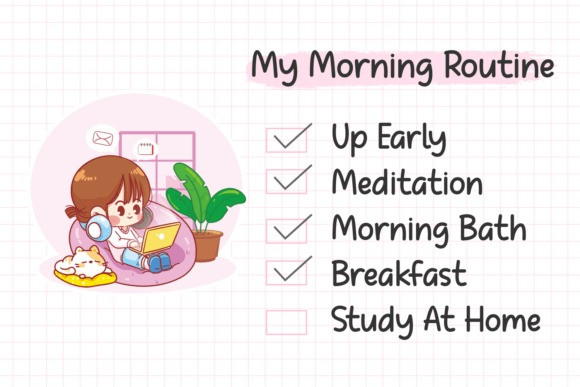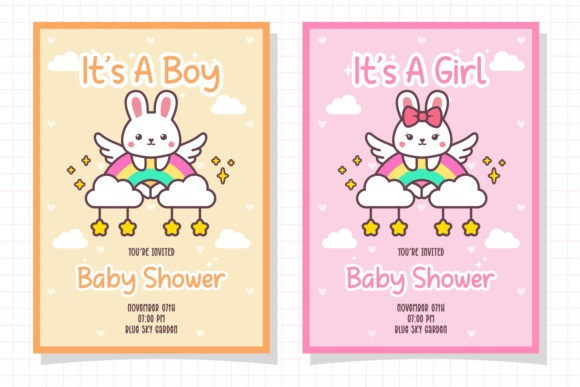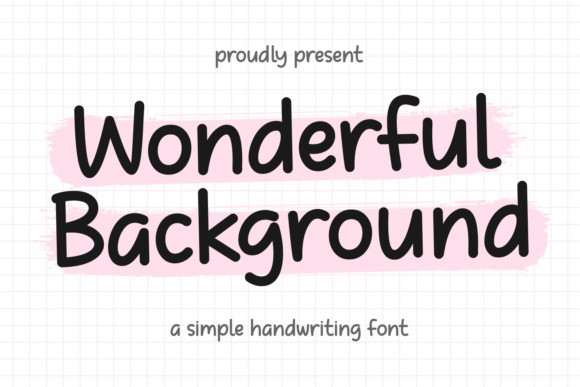
Wonderful Background Font
Wonderful Background Font, the enchanting amalgamation of handwriting and minimalist fonts featuring a modern and stylish appeal. Dressed in simplicity, this uber-clean typeface adds an unmissable elegance to your sticky notes, notebooks and magazine headings. Sporting a monoline construct, it effortlessly dips into the pool of trending and beauty fonts ideal for logo designs, prints, and apparel.
Epitomizing fashion at its best, this font transcends seasons, finding relevance as a spring font or winter font, an autumn or summer font, perfectly encapsulating the mood of each season. Whether you’re gearing up for Christmas in July or prepping for Mother’s Day or Father’s Day, “Wonderful Background” remains a trustworthy companion.
Its cool, wedding font will add that much-needed fancy touch to your special day, while its holiday-esque charm will make your project bloom like a vibrant flower. This darling of the font world serves multilingual purposes and seamlessly delves into Eastern European realms with aplomb.
Decked with cute appeal, this font finds a comfortable fit in Cricut, sublimation, Svg, and craft projects. Ideal playmates for ‘Wonderful Background’ are playful lettering fonts often found celebrating Valentine’s, Christmas, or any other celebration that needs a touch of typographic magic. As a diverse sans serif and display font, it truly is the chameleon of the typography world. Cherish the versatility and limitless creativity of “Wonderful Background.”